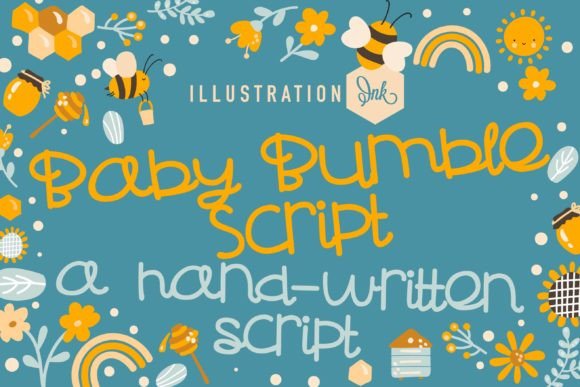
Journey into the realm of imagination and meet Baby Bumble Script, the font that ignites the spirit of playfulness and innocence. This handcrafted marvel, brought to life by Illustration Ink, captivates with its whimsical letterforms that dance across the page like a joyful symphony.
Step into a world where stories come alive, where children's eyes sparkle with wonder as they embark on enchanting adventures. Baby Bumble Script is the perfect companion for those captivating tales, its charming curves and playful strokes creating an atmosphere of pure imagination.
Unleash the magic of creativity with party invitations that burst with exuberance. Let the letters of Baby Bumble Script twirl and twirl, inviting friends and family to a celebration filled with laughter and joy. Its delightful character adds a touch of magic to any occasion, leaving lasting memories that warm the heart.
Dive into the world of craft projects and let Baby Bumble Script transform ordinary materials into extraordinary masterpieces. With its enchanting strokes, it breathes life into handmade cards, personalized gifts, and scrapbook pages. Each stroke tells a tale, each letter a brushstroke of pure artistry.
Experience the joy of reading with Baby Bumble Script, the font that makes words come alive. Its gentle flow and easy-to-read characters caress the eyes, inviting readers to lose themselves in the enchanting world of stories. Perfect for children's books and educational materials, it opens up new horizons of knowledge and sparks a lifelong love for reading.
Embark on a whimsical journey with Baby Bumble Script, a font that captivates with its adorable charm. Embrace its lovable character and let happiness dance across your designs. From children's books to party invitations, craft projects to educational materials, Baby Bumble Script transforms the mundane into the magical. Its delightful spirit and playful essence are guaranteed to leave a lasting impression, spreading joy and wonder wherever it goes.